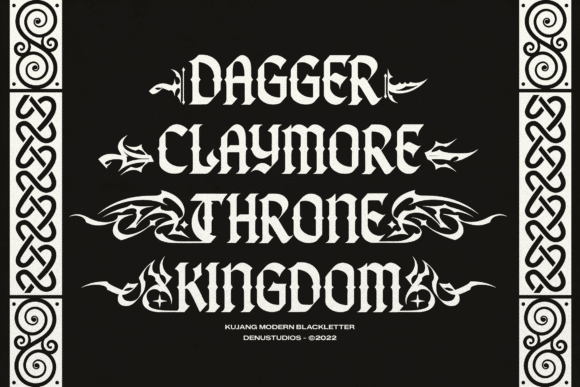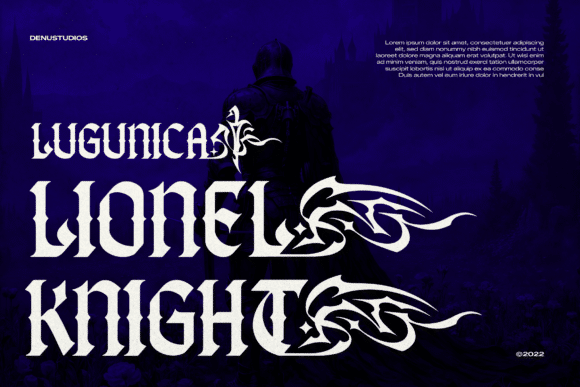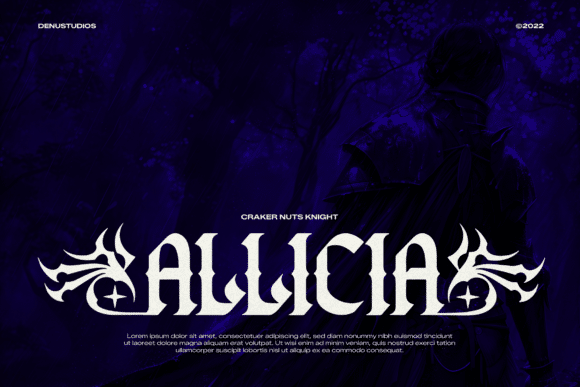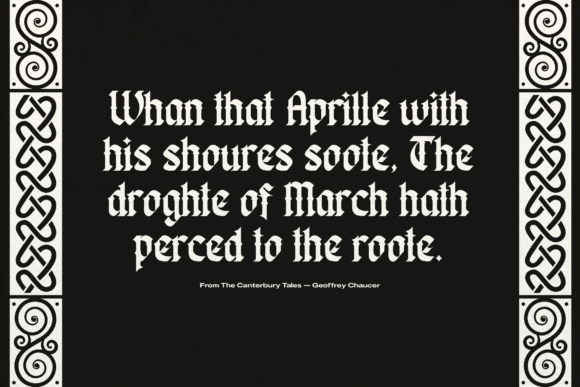
Kujang Font
Unleash an aura of dark majesty with Kujang, a breathtaking display typeface that captures a “mythological-and-mystic” soul. This modern blackletter font features aggressive, sharp-angled letterforms interwoven with elaborate thorns, celestial stars, and sweeping gothic ligatures. With its high-contrast white silhouette and rhythmic, “dark-fantasy” energy, Kujang is the premier choice for independent metal band branding, epic fantasy novel covers, tattoo studio identities, and high-impact “legend-and-lore” social media headers.